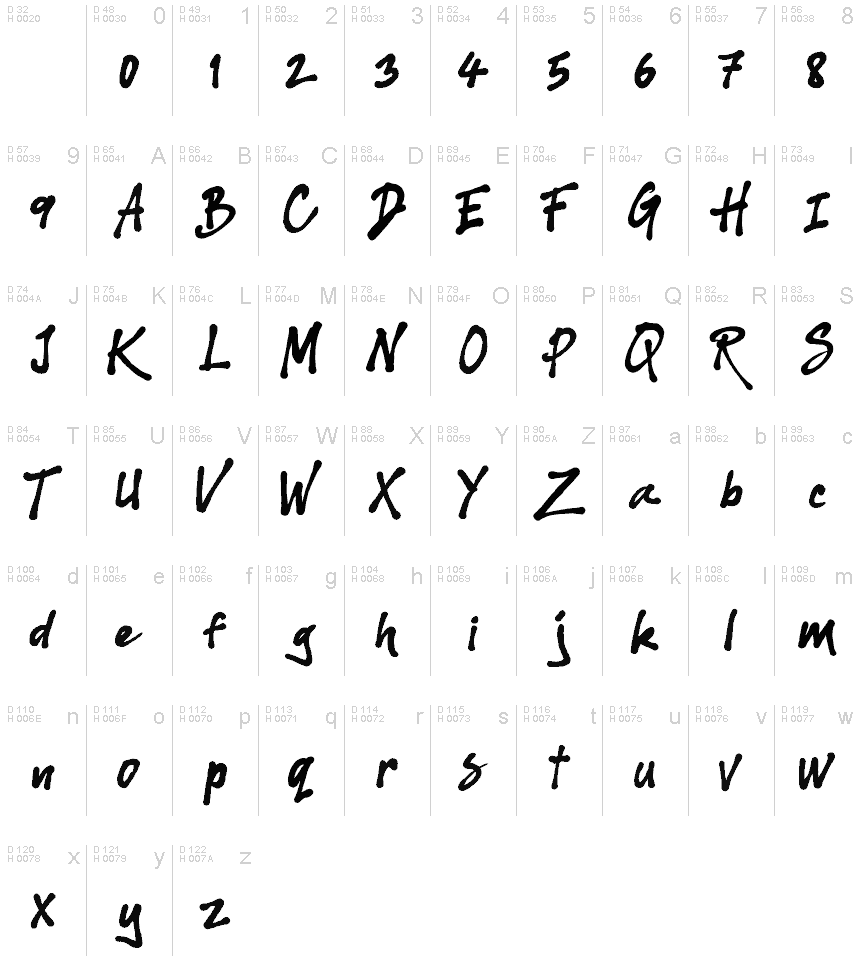
Monster Game
Monster Game is a bold, brush-style font with a distinctly organic and energetic feel. The irregular, dynamic strokes convey a sense of movement and vitality, making it an ideal choice for titles, headers, and branding in a wide range of applications - from gaming and entertainment to sports and lifestyle design. The font's raw, handcrafted aesthetic lends an authentic, edgy character that commands attention and evokes a sense of adventure.
Its versatility allows it to seamlessly integrate into various visual contexts, from logos and packaging to editorial layouts and digital interfaces, adding visual impact and a touch of rebellious flair.